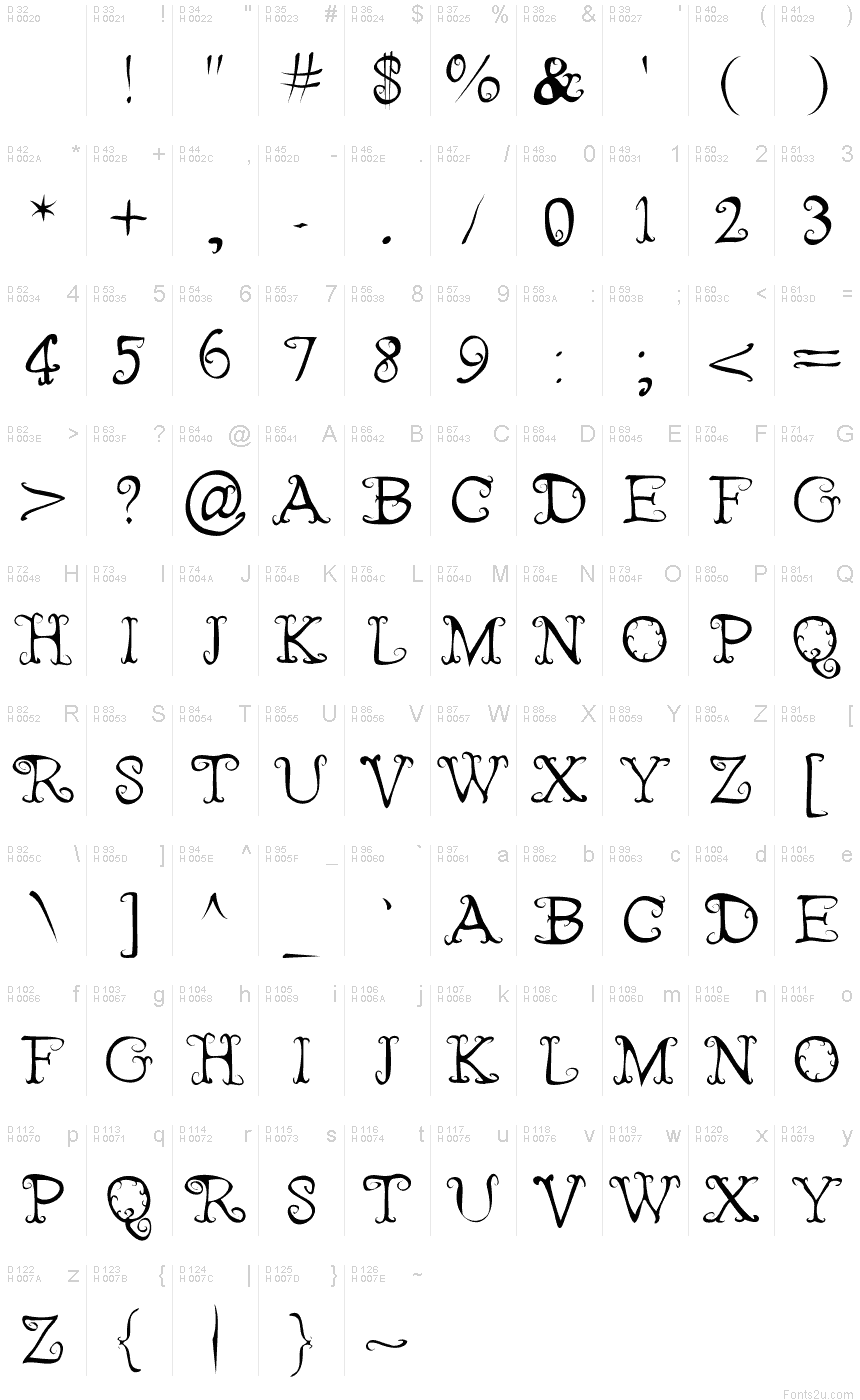
Fairies Wear Boots
Fairies Wear Boots font by ~Sorcerer~ is a free decorative comic display typeface that feels like it was scribbled in the margins of a spellbook. Tall, spindly letters twist with wiry curls and hook-like flares, giving each word a slightly eerie, slightly playful wobble. The texture feels hand-drawn and scratchy, as if carved with ink on old parchment—lightweight in stroke, but rich in mood.
Using Fairies Wear Boots, you can instantly push titles into dark-fantasy territory—great for Halloween posters, spooky party invitations, witchy zines, game logos, band merch, and themed YouTube thumbnails. This free font works best at larger sizes where its wiry details stay crisp; pair it with a clean geometric sans for body text so the magical chaos stays where it belongs: in your headlines.